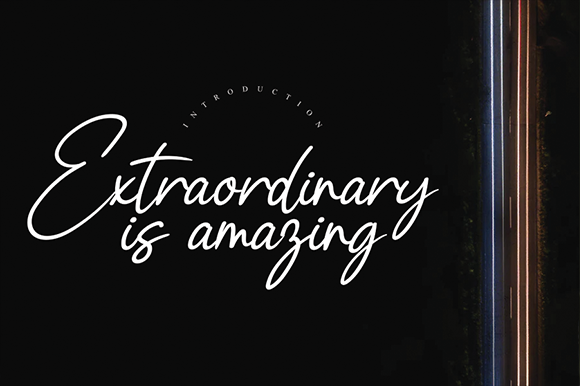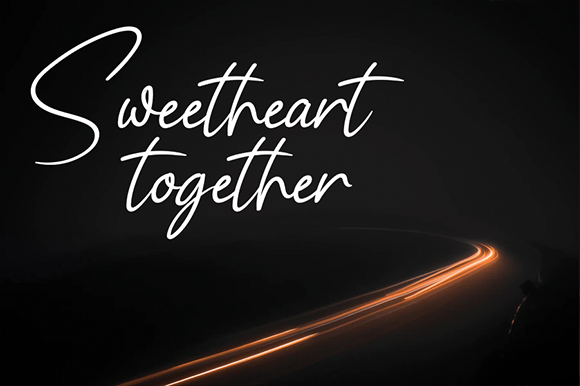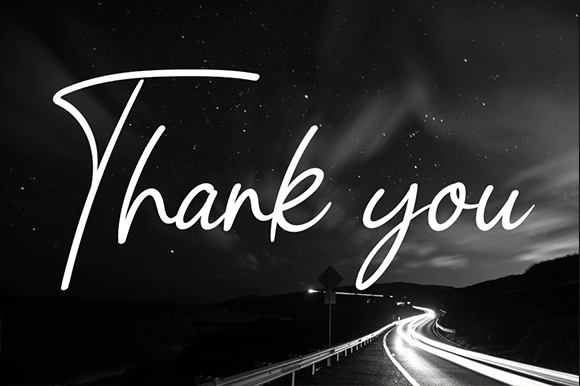
Mallanitan Font
About Mallanitan Font
Mallanitan is a unique, simple, and friendly handwritten font. Fall in love with its incredibly flowing and versatile style and use it to create gorgeous wedding invitations, beautiful stationary art, eye-catching social media posts, and much more!